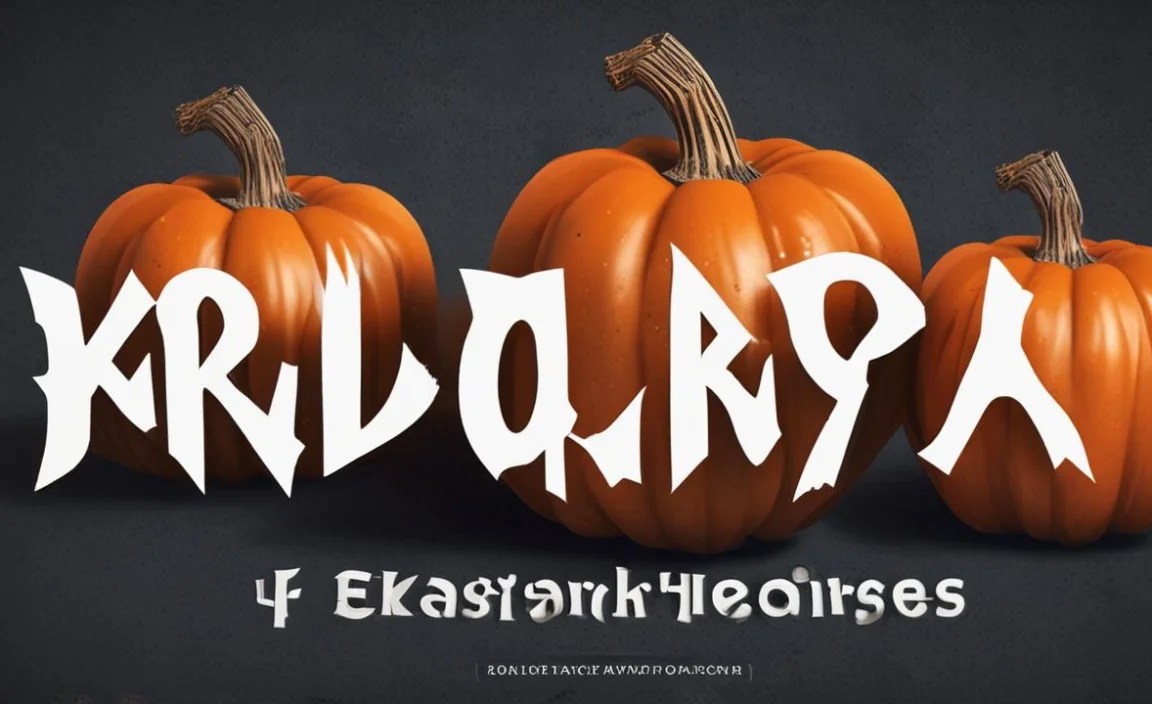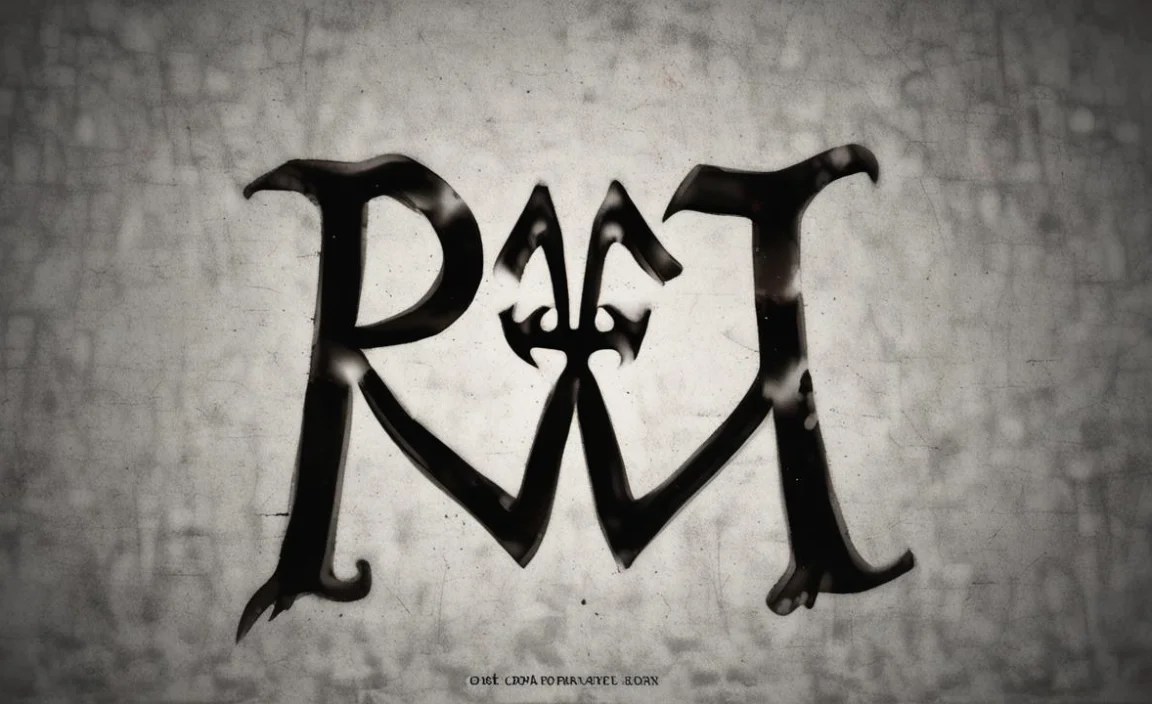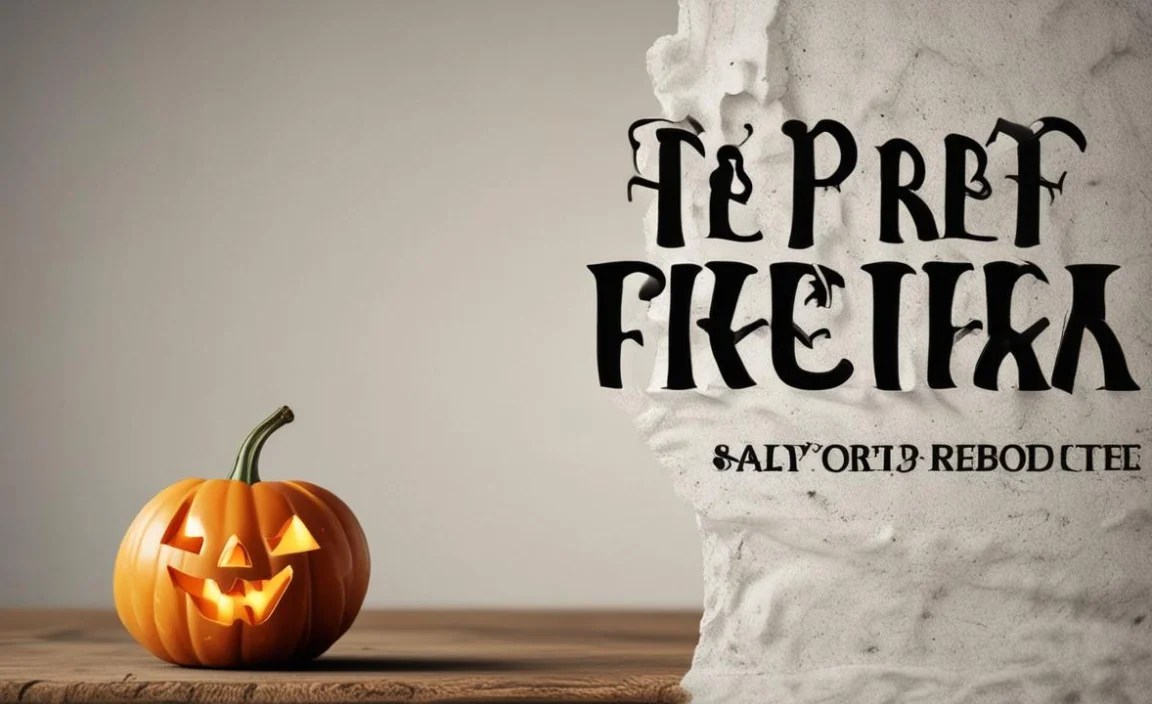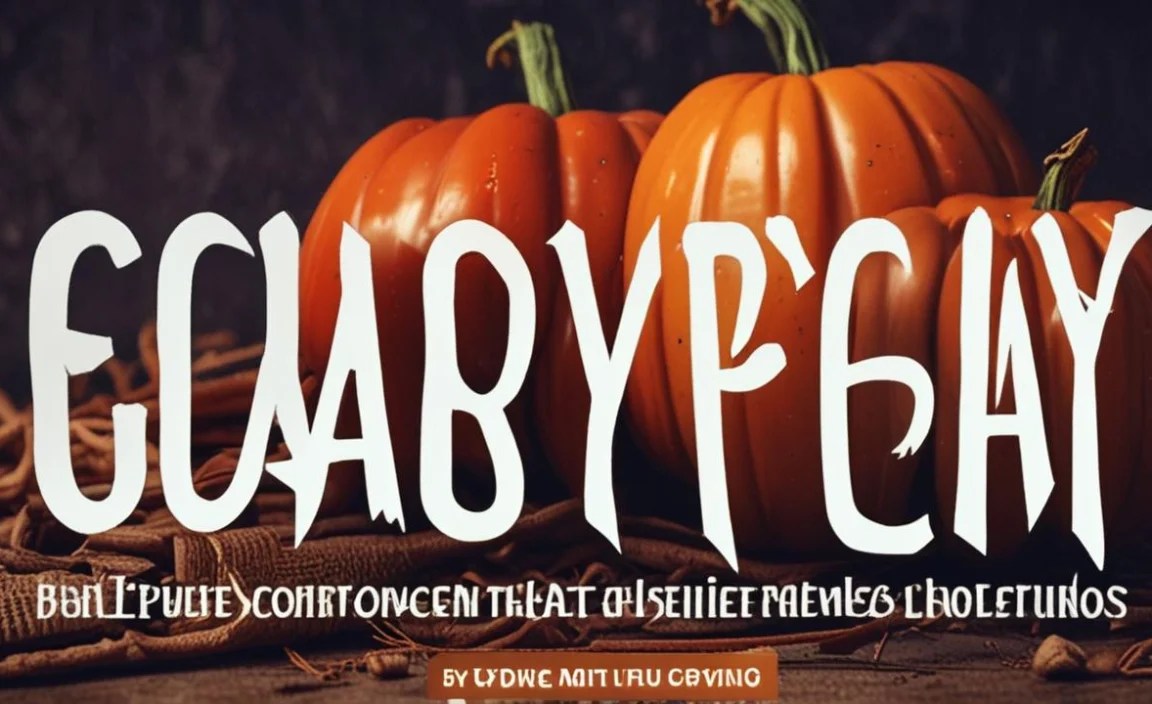
The Scary Font is a top choice for all your Halloween and horror-themed projects. Whether you’re designing a spooky Halloween party invite, a horror movie poster, or Halloween-themed graphics for websites, this font is sure to evoke the chilling atmosphere of the season.
Created by skilled designers, it brings together creepy elements, vintage vibes, and readability, making it ideal for spooky posters, movie posters, and typography. Perfect for Halloween events, spooky Halloween designs, and anything in between!
- Style: Handwritten, Decorative, Horror
Where Scary Font Is In Use
- Halloween designs: Invitations, posters, and event flyers
- Horror typography: Movie titles, book covers, and posters
- Spooky Halloween designs: Social media graphics, YouTube thumbnails
- Horror movie posters: Title credits and taglines
- Graphic design projects: Fonts for Halloween-themed typography
- Spooky poster designs: Flyers and event banners
- Scary Font + Gothic Serif: For a spooky, yet readable typography
- Scary Font + Slasher Font: Adds a grungy feel to horror-themed designs
- Scary Font + Creepy Brush: Pairs well for an edgy, haunting look perfect for horror movie posters
The Scary Font is a versatile and spooky typeface perfect for creating Halloween designs, horror movie posters, and any spooky Halloween typography. Whether for event flyers, book covers, or graphic design projects, this font gives your horror-themed designs a bold, chilling touch. Pair it with other spooky fonts and you’ll have the perfect font for all your Halloween needs!
1.What Is The Best Use For Scary Font?
Scary Font is perfect for Halloween posters, horror movie posters, and spooky Halloween flyers.
4.Does The Font Support All Characters?
Yes, Scary Font includes uppercase letters, numbers, punctuation, and some alternates for a varied design.